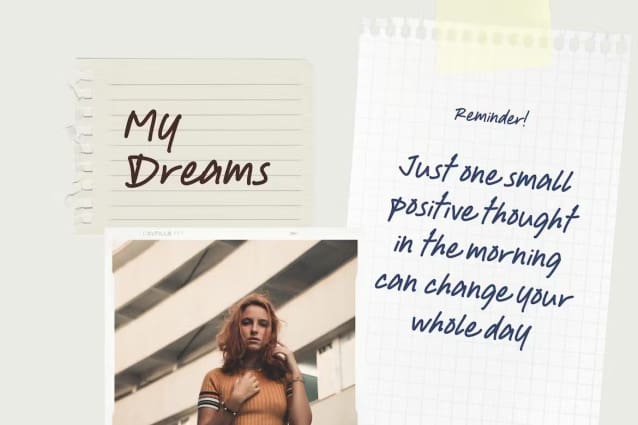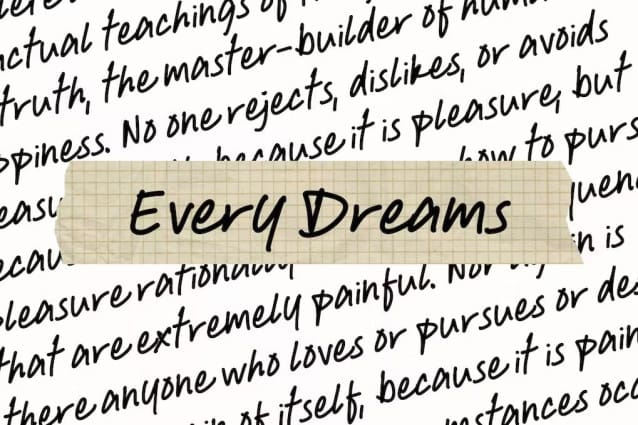
Every Dreams Font
Every Dreams – Handwritten Font, a versatile typeface designed to add a touch of elegance and authenticity to your projects. This exquisite font captures the essence of handwritten scripts, infusing a natural and organic feel into every letter. Perfect for a range of applications, including wedding invitations, note-taking, logos, and slogans, Every Dreams brings a modern and sophisticated touch to your designs.
Whether you’re designing a heartfelt wedding invitation or creating a personalized logo, this handwritten font offers a unique and personal touch. Its stylish strokes and graceful curves make it an ideal choice for creating a signature style or adding a handwritten element to your digital creations. Compatible with iPad and GoodNotes, this font allows you to effortlessly create stunning digital art and note-taking experiences.